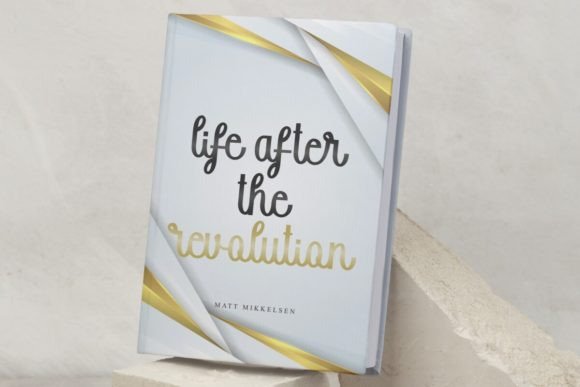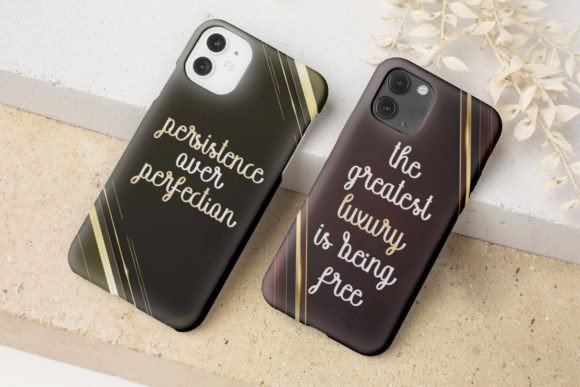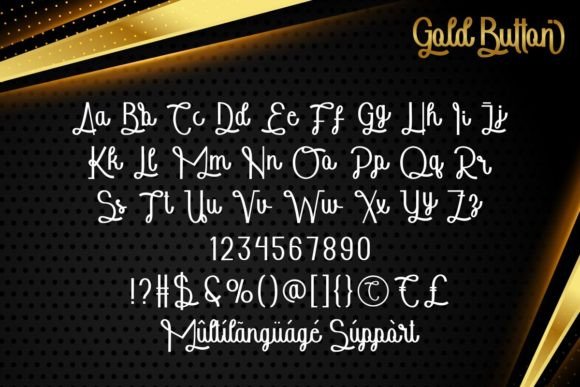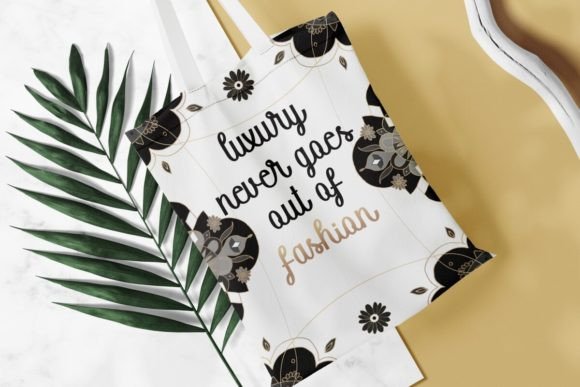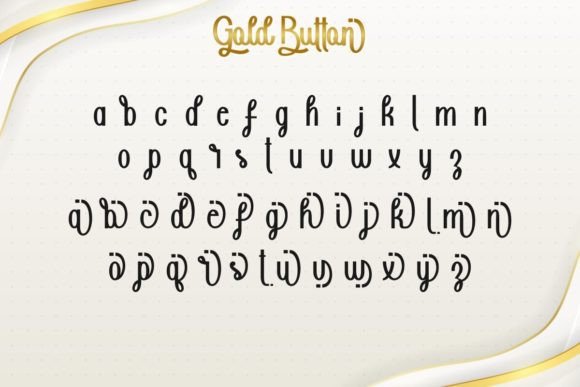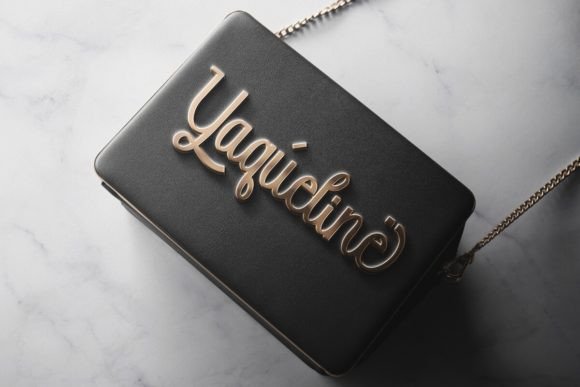
The Quest for the Perfect Font: Discovering Gold Button Font
I’ll never forget the time I was working on a project for a high-end fashion brand, and I just couldn’t find the right font to match their luxurious vibe. I scoured the internet, tried out countless fonts, but nothing seemed quite right. That was until I stumbled upon Gold Button Font, a stylish handwriting font created by EdricStudio. It was like a breath of fresh air – elegant, sophisticated, and perfect for the job.
A Personal Review of Gold Button Font
So, what makes Gold Button Font so special? Let’s dive into the good stuff! 😊
- ✨ Classic and Elegant Design: Gold Button Font has a timeless quality to it, making it suitable for a wide range of industries, from architect to writer.
- ✅ Easy to Read: The font is carefully crafted to be clear and legible, even at smaller sizes.
- 💫 Stunning Character Set: The font comes with a beautifully managed character set, complete with well-spaced and kerned glyphs.
- 🔍 PUA Encode Characters: This means you can access all the glyphs and additional characters easily, without needing extra design software.
While Gold Button Font is an excellent choice, there are a few minor things to keep in mind:
- ⚠️ Limited Use in Non-Design Contexts: While the font is versatile, it might not be the best choice for very casual or playful projects.
- 🤔 Some Manual Kerning Required: Depending on the project, you might need to do some manual kerning to get the text looking perfect.
The Story Behind Gold Button Font
EdricStudio, the creator of Gold Button Font, is a passionate design studio dedicated to crafting beautiful, functional fonts. The story behind Gold Button Font is one of meticulous attention to detail and a passion for elegance. According to EdricStudio, the font was inspired by the classic typography of luxury brands and the timeless beauty of handwriting.
| Is Gold Button Font suitable for body text? | While Gold Button Font is beautiful, it’s best suited for headings and titles. For body text, you might want to choose a more traditional font. |